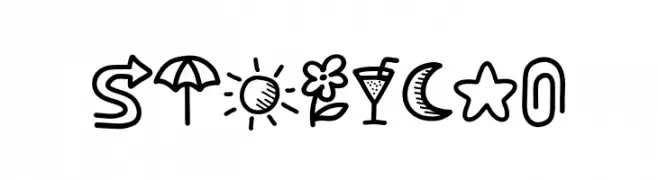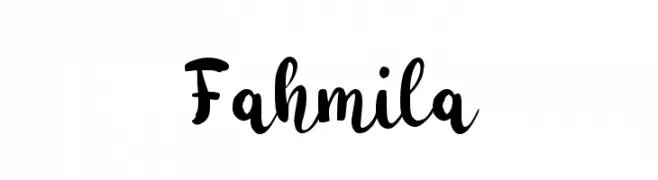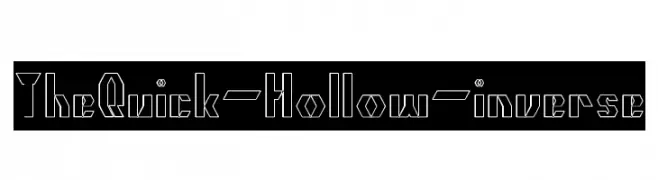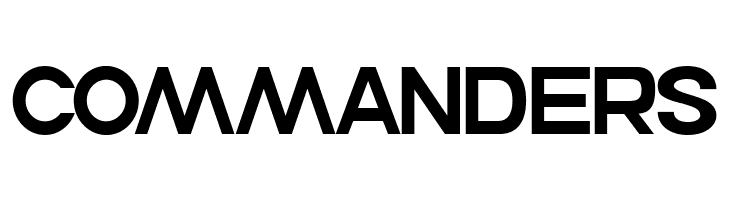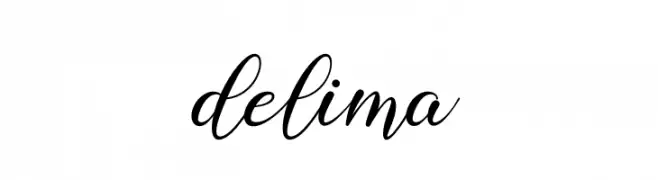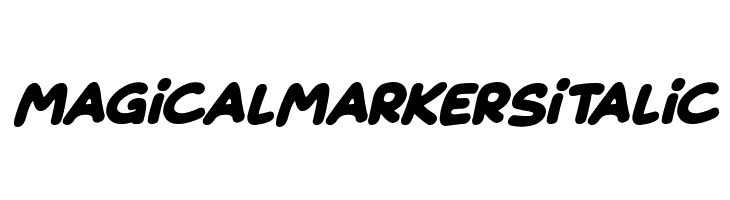
A whimsical decorative font featuring playful hand-drawn doodles.
A sleek, modern font with geometric shapes and clean lines.
A bold, slab serif font with strong geometric shapes and thick strokes.
A bold, geometric font with futuristic cut-out details.
A bold, playful script font with a hand-drawn, modern style.
A modern, hollow, inverse font with geometric shapes and sharp angles.
A bold, geometric font with a modern and industrial style.
A bold, italicized font with a modern and slightly decorative style.